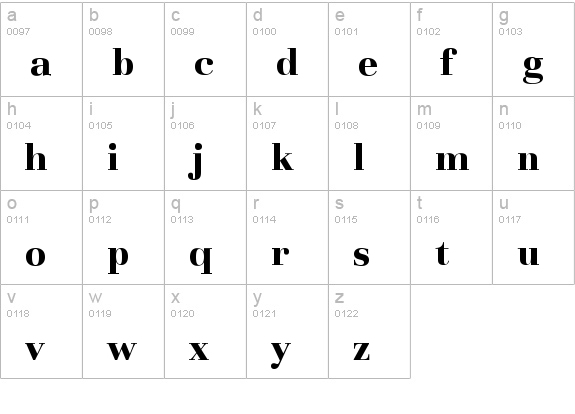
Basilia T Bold Font Details
Basilia T Bold is a strong, high-contrast variant in the Basilia typeface family \xE2\x80\x94 well suited to headlines, attention-grabbing titles, and strong calls-to-action.